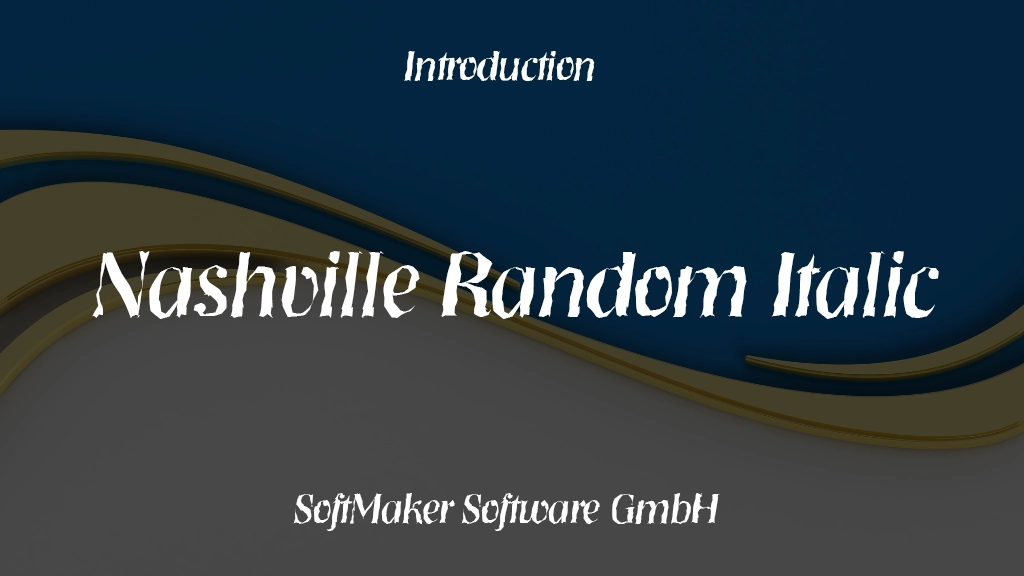
Nashville Random Italic is a fun and free font that is perfect for personal use. It is an Italic font, which means that the letters slant to the right. It was designed by SoftMaker Software GmbH.